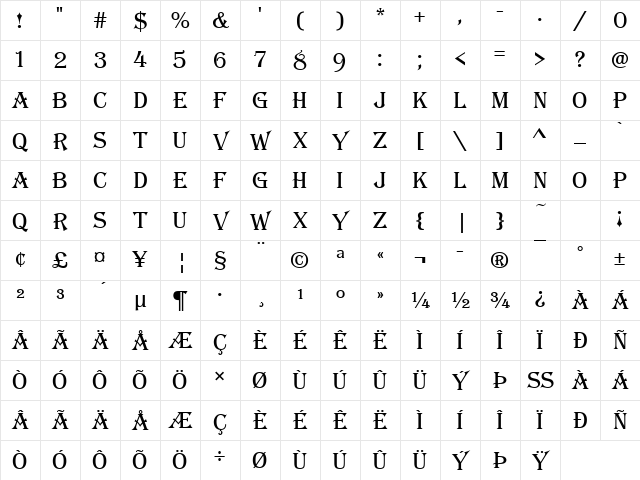
Algerian Becker Basic Regular Free Font
Algerian Becker Basic Regular
Design Context for Algerian Becker Basic
Algerian Becker Basic is a composed and adaptable typeface that performs quietly and consistently across a wide range of design contexts.